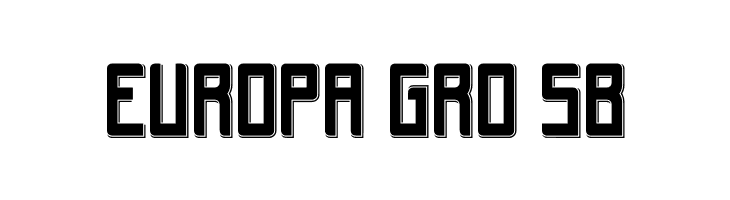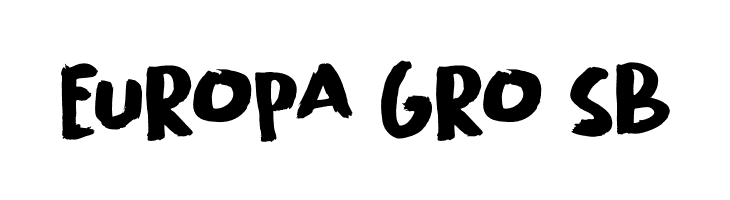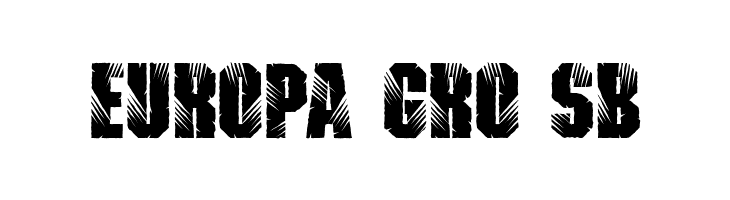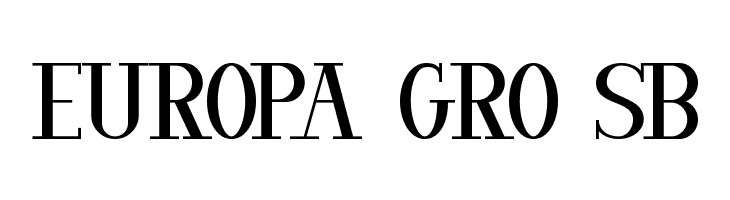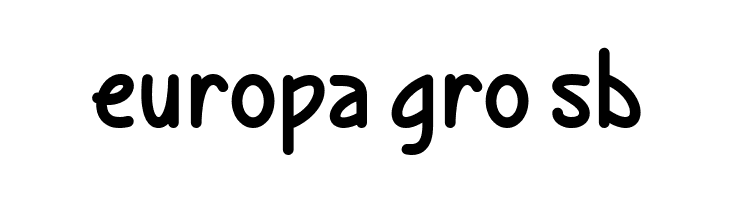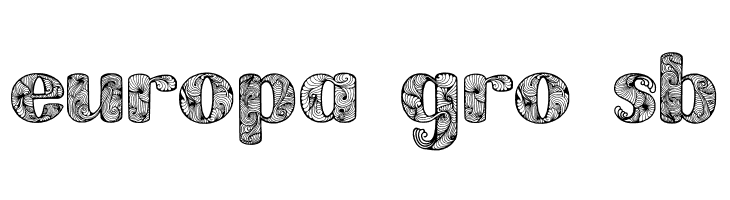
A bold, geometric font with a layered outline effect and modern industrial style.
A classic serif font with high contrast and elegant, elongated letterforms.
A decorative font with intricate, swirling patterns inside bold, rounded characters.
A decorative font with intricate, swirling patterns and bold, rounded letters.
A bold, distressed font with a shredded, chaotic appearance.
A bold, hand-painted style font with an expressive and artistic look.
A bold, geometric font with a modern, impactful design.
A vintage, distressed font with a hand-crafted, rustic appeal.
A playful, rounded typeface with a friendly and approachable style.
A playful, rounded typeface with a whimsical and friendly style.